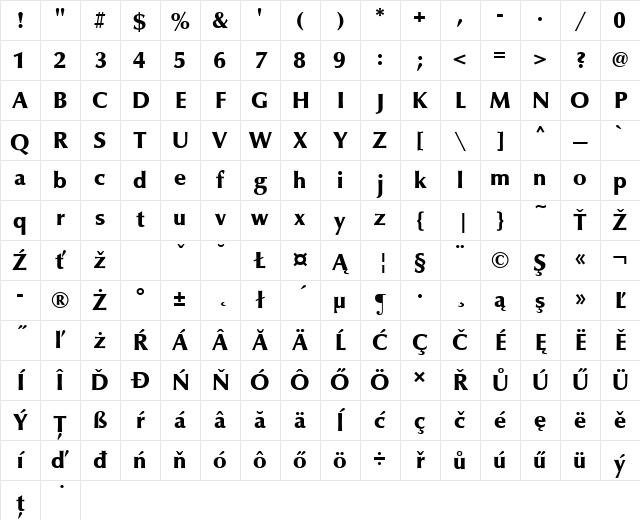
URWClassicoTEEBla Regular
Design Context for URWClassicoTEEBla
URWClassicoTEEBla wears its vintage influences proudly, with letterforms that recall mid-century signage, classic packaging, and nostalgia-driven design.
Font Pairing: Combine URWClassicoTEEBla with a simple slab or neutral sans - period-accurate companions reinforce the vintage feel without competing for attention.
Pro Tip: Lean into URWClassicoTEEBla's period character by pairing it with aged paper textures, muted colour palettes, and vintage illustration styles.